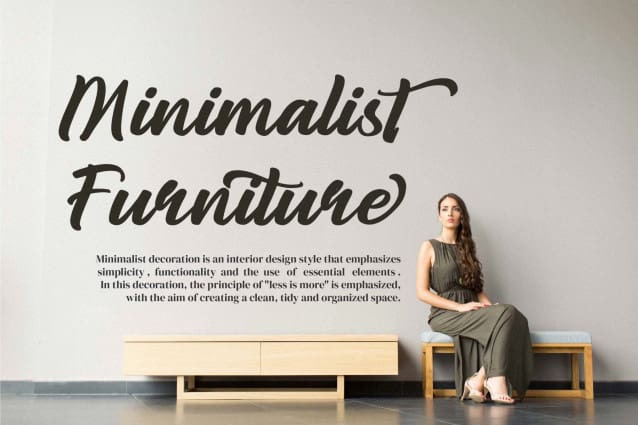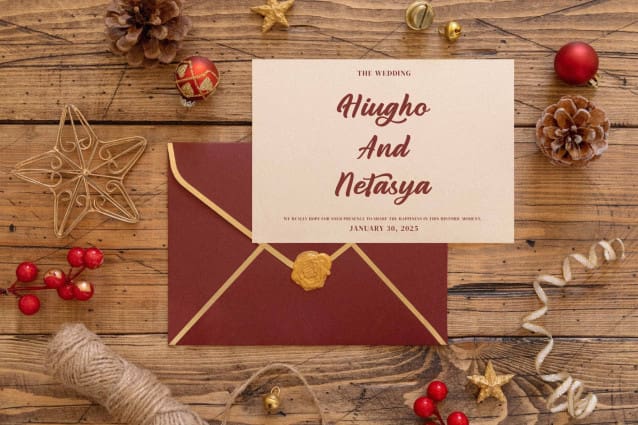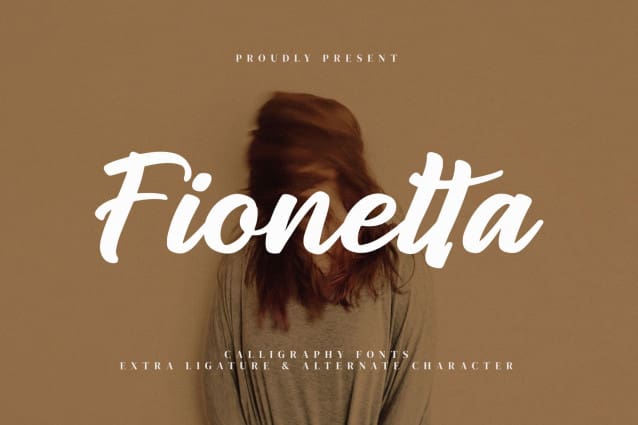
Fionetta Script Font
Fionetta Script Font – Calligraphy Fonts, from Goresan Studio, suitable for any projects such as: logos, branding projects, homeware designs, product packaging, mugs, quotes, posters, shopping bags, t-shirts, book covers, name card, invitation cards, greeting cards, label, photography, watermark, special events, and all your other lovely projects that need a beautiful script taste.